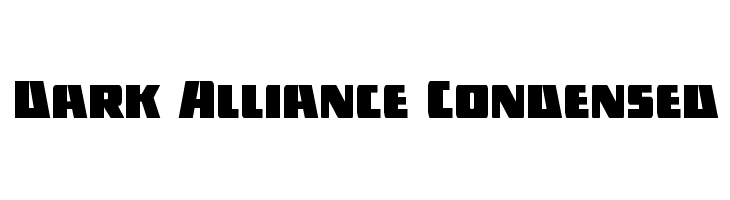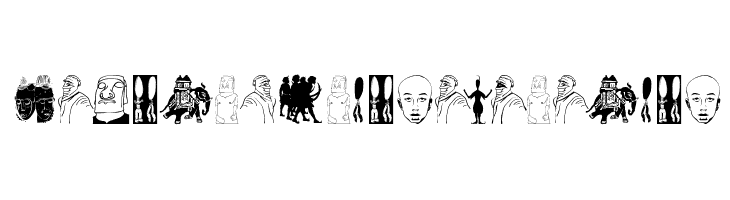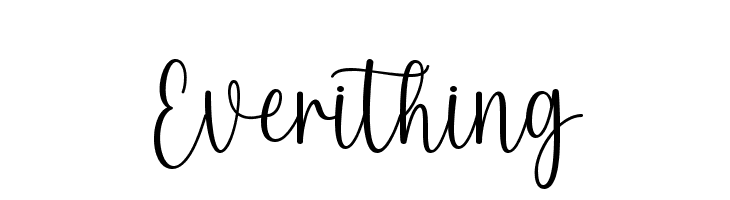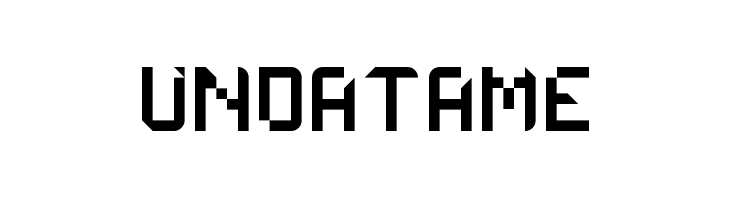
A bold, playful font with exaggerated serifs and thick strokes, perfect for decorative use.
A playful, bold font with a shadow effect and hand-drawn aesthetic.
A bold, modern sans-serif font with geometric shapes and strong lines.
A dynamic handwritten font with fluid, expressive strokes.
A futuristic, segmented font with geometric, angular letterforms.
A bold, decorative font with a Victorian, gothic-inspired style.
A playful set of hand-drawn doodles with whimsical and fun designs.
Casual handwritten script font.